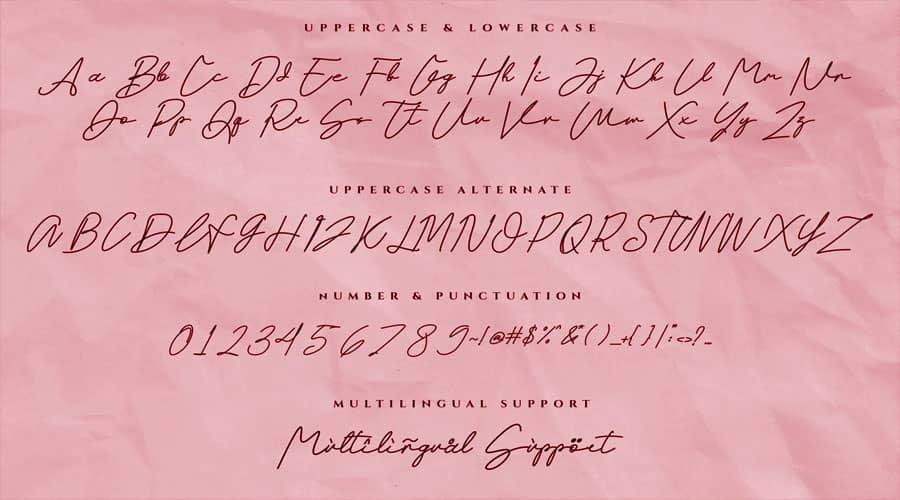
Neo Stone Signature is a script and handwritten font by jadatype, released on June 30, 2020. It has a relaxed, flowing signature style. It includes alternate letters and swashes, so it suits personal projects, greeting cards and signature-style logos.
About the Neo Stone Signature font
The handwritten letters look closer to everyday pen writing than to printed type. The strokes are smooth and the shapes feel personal, so the font works well for names and short notes.
Designers often use it for watermarks, photo captions, product labels, wedding stationery and book covers. It works best with short phrases, such as a name, a title or a one-line greeting.
Neo Stone Signature Font View